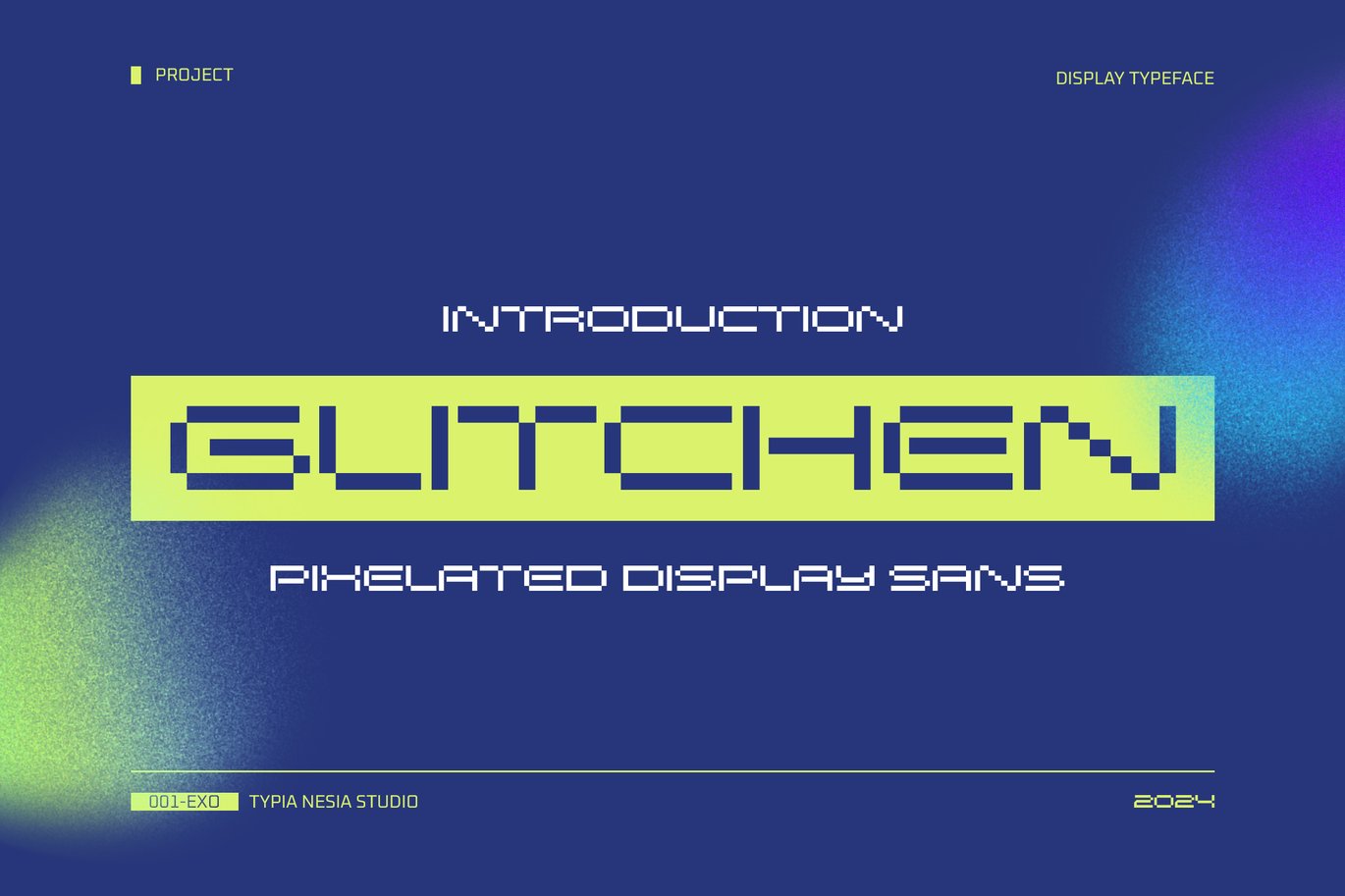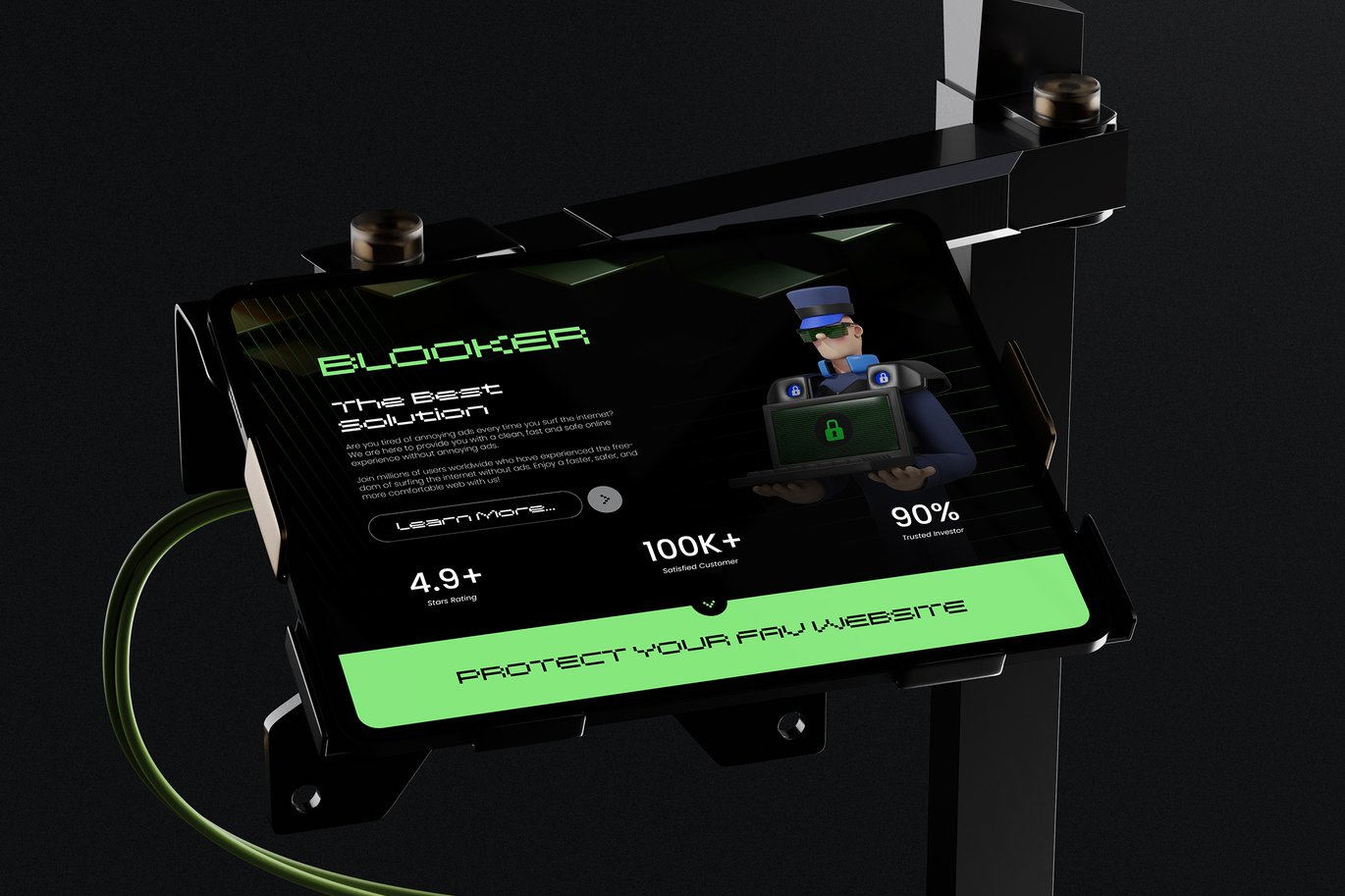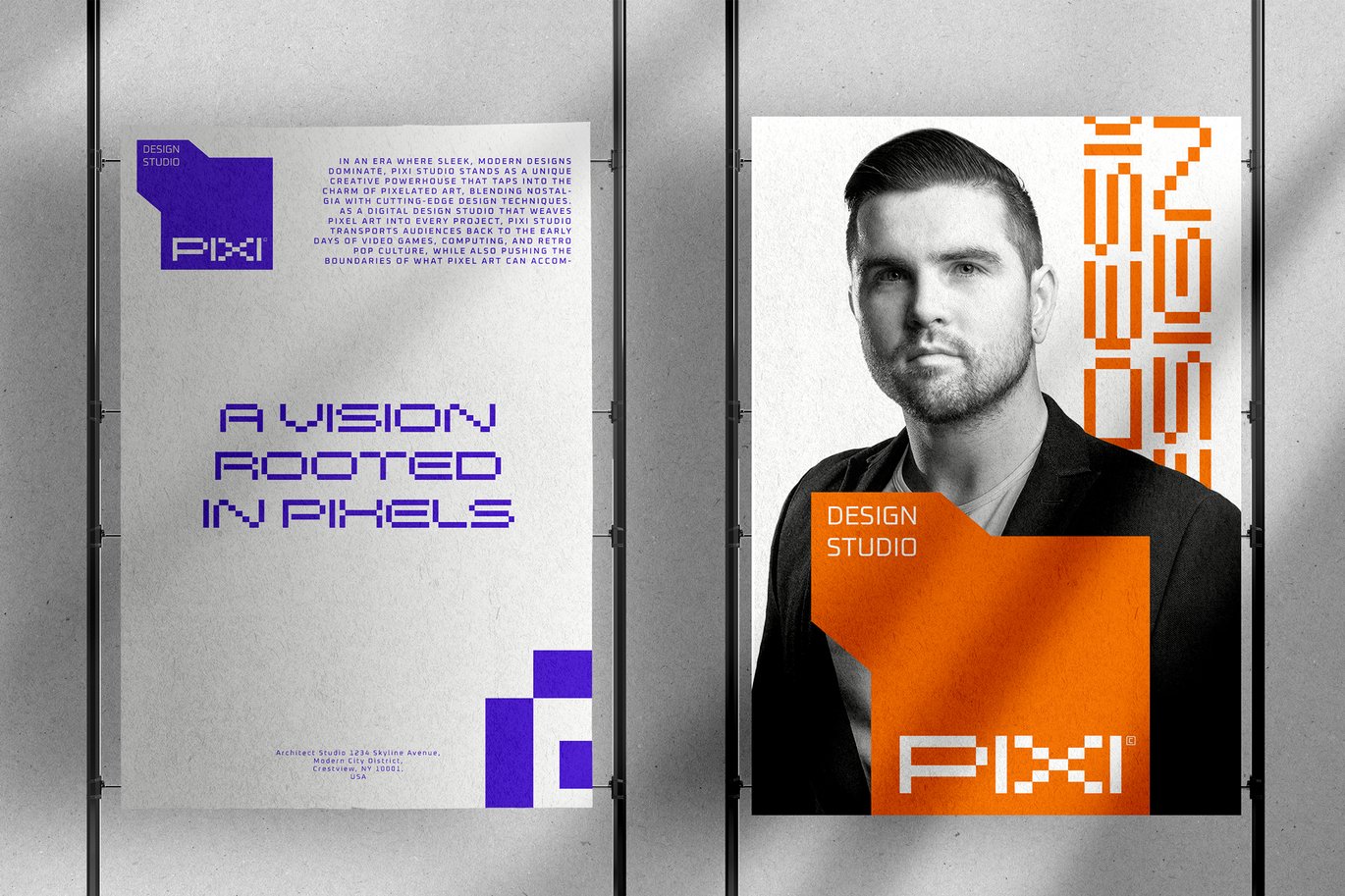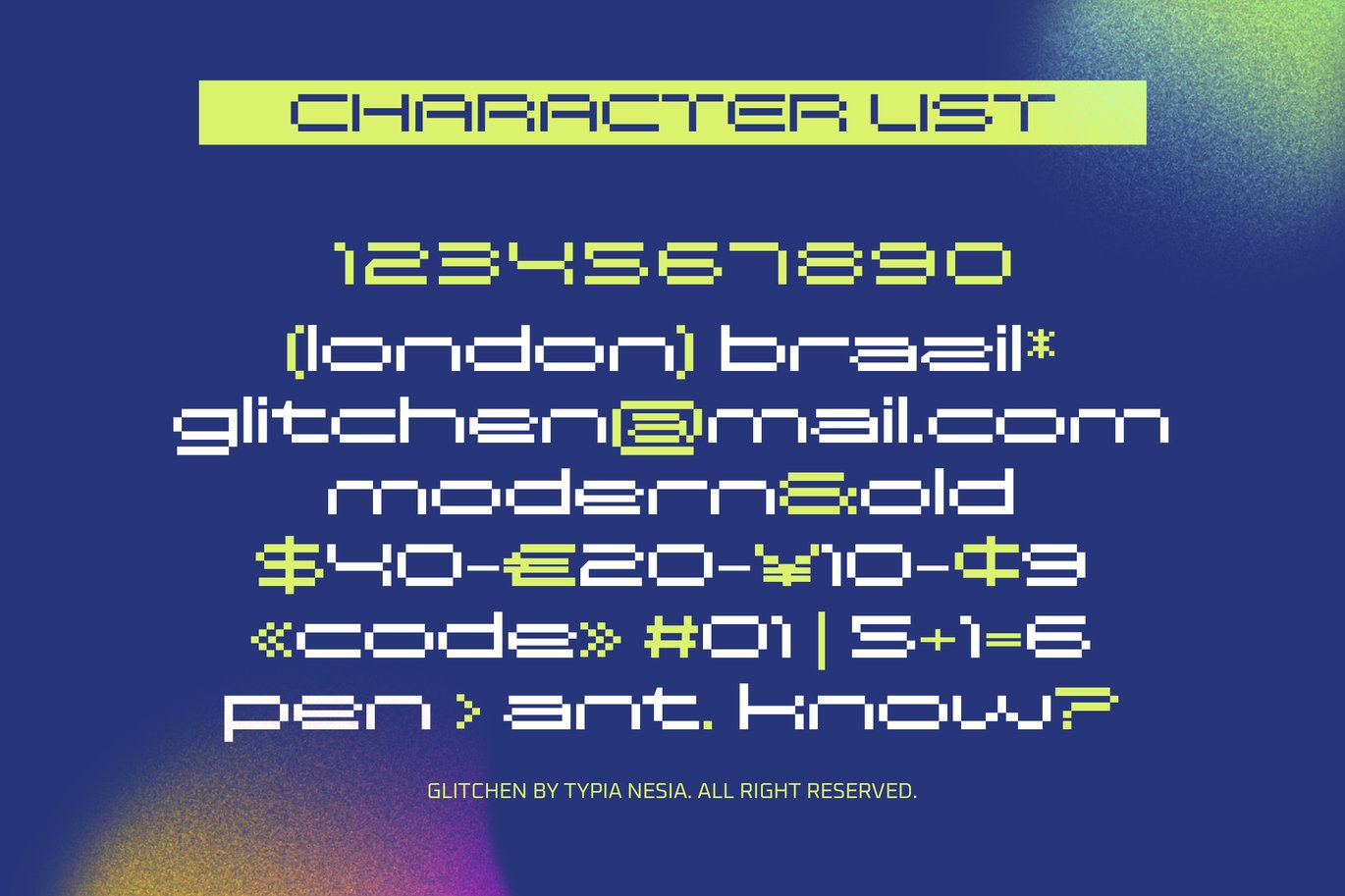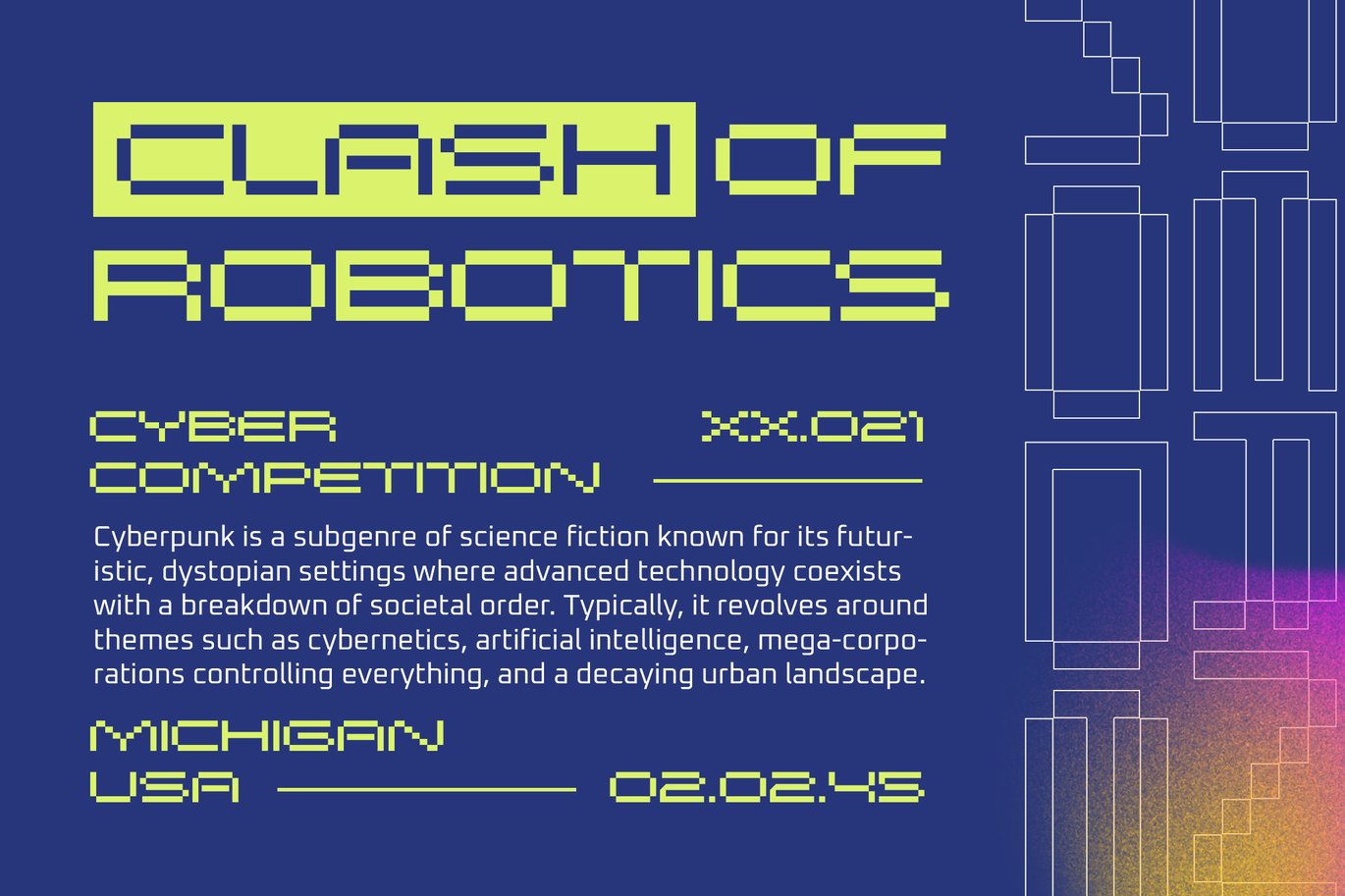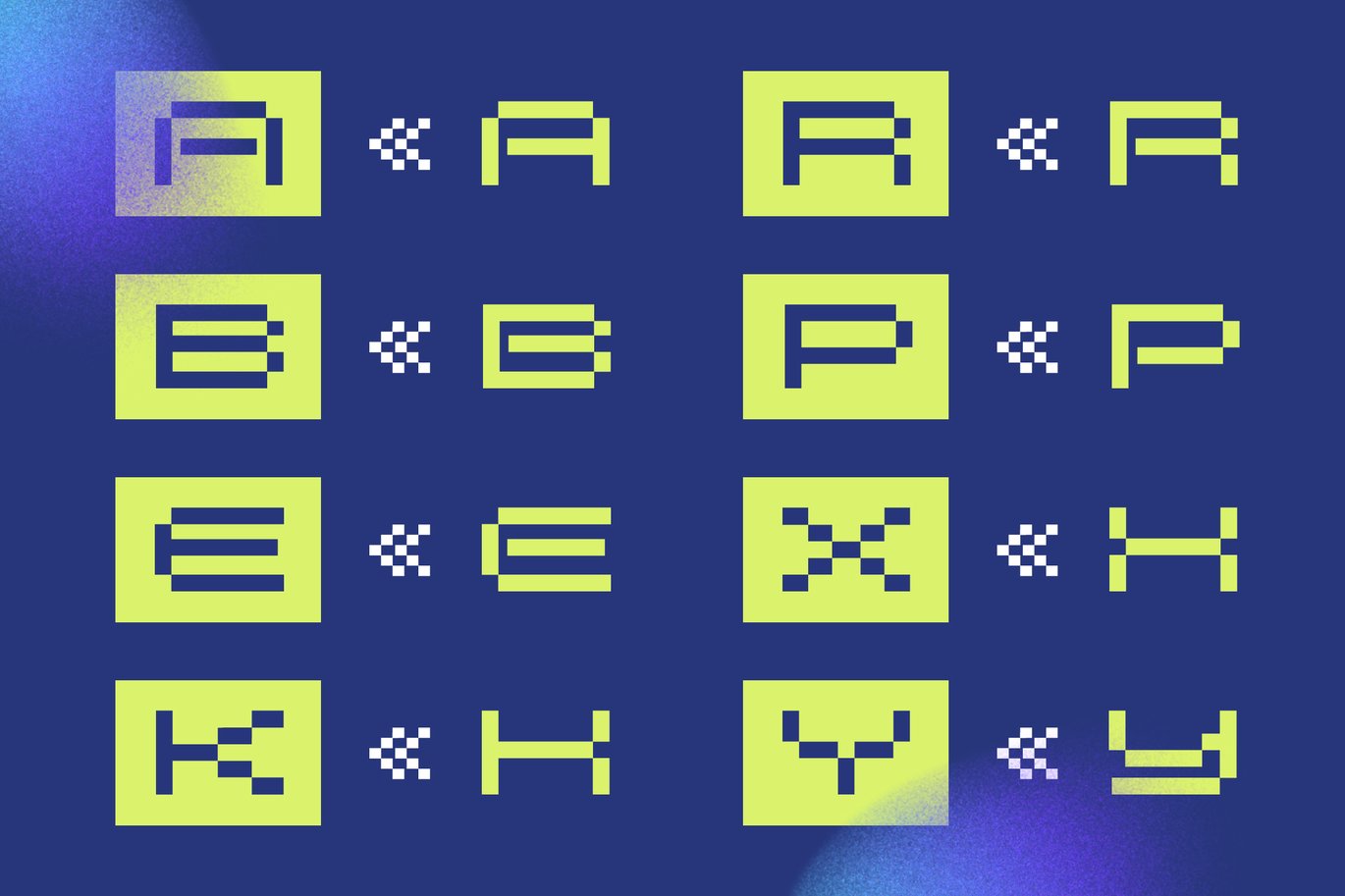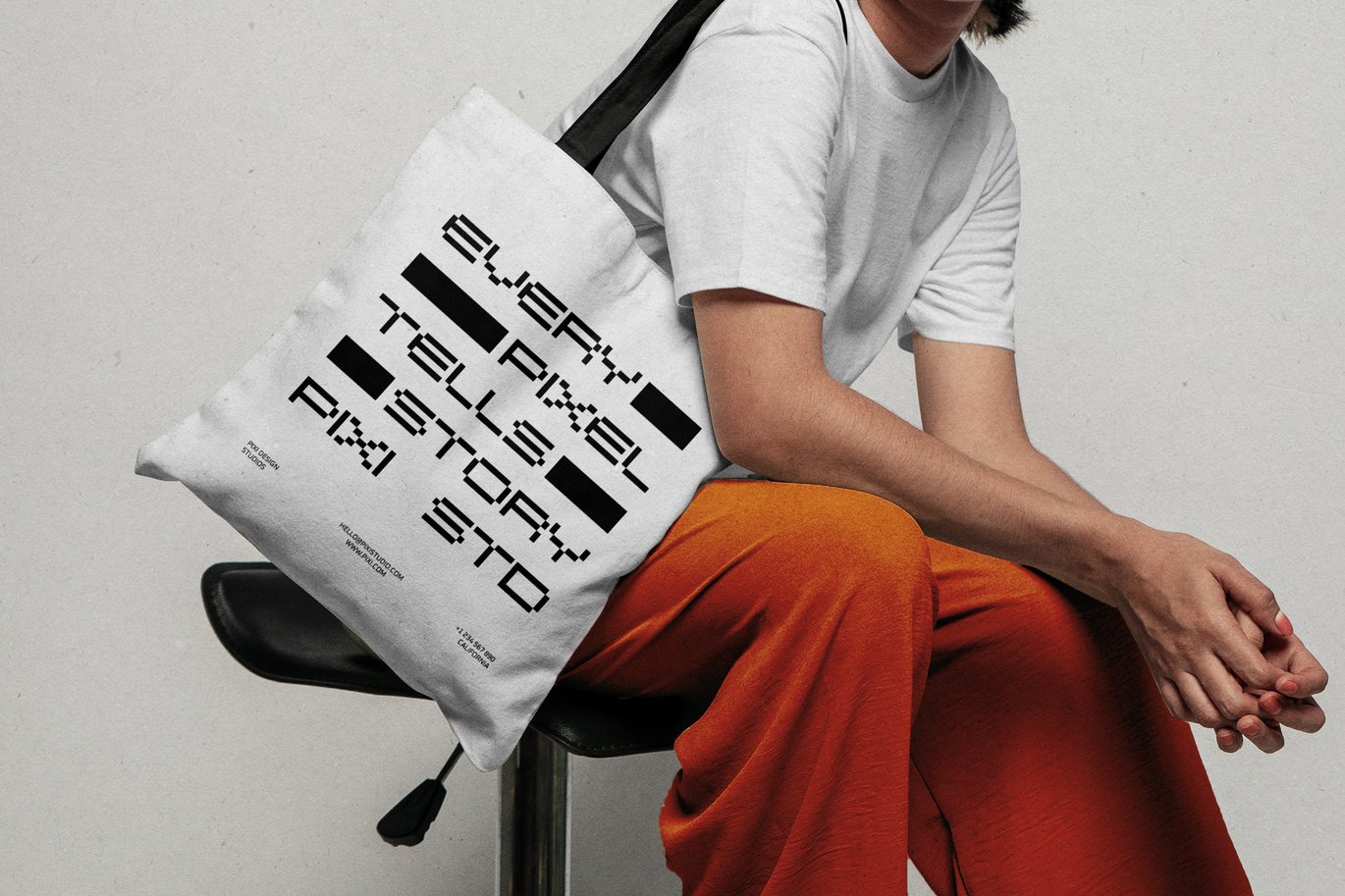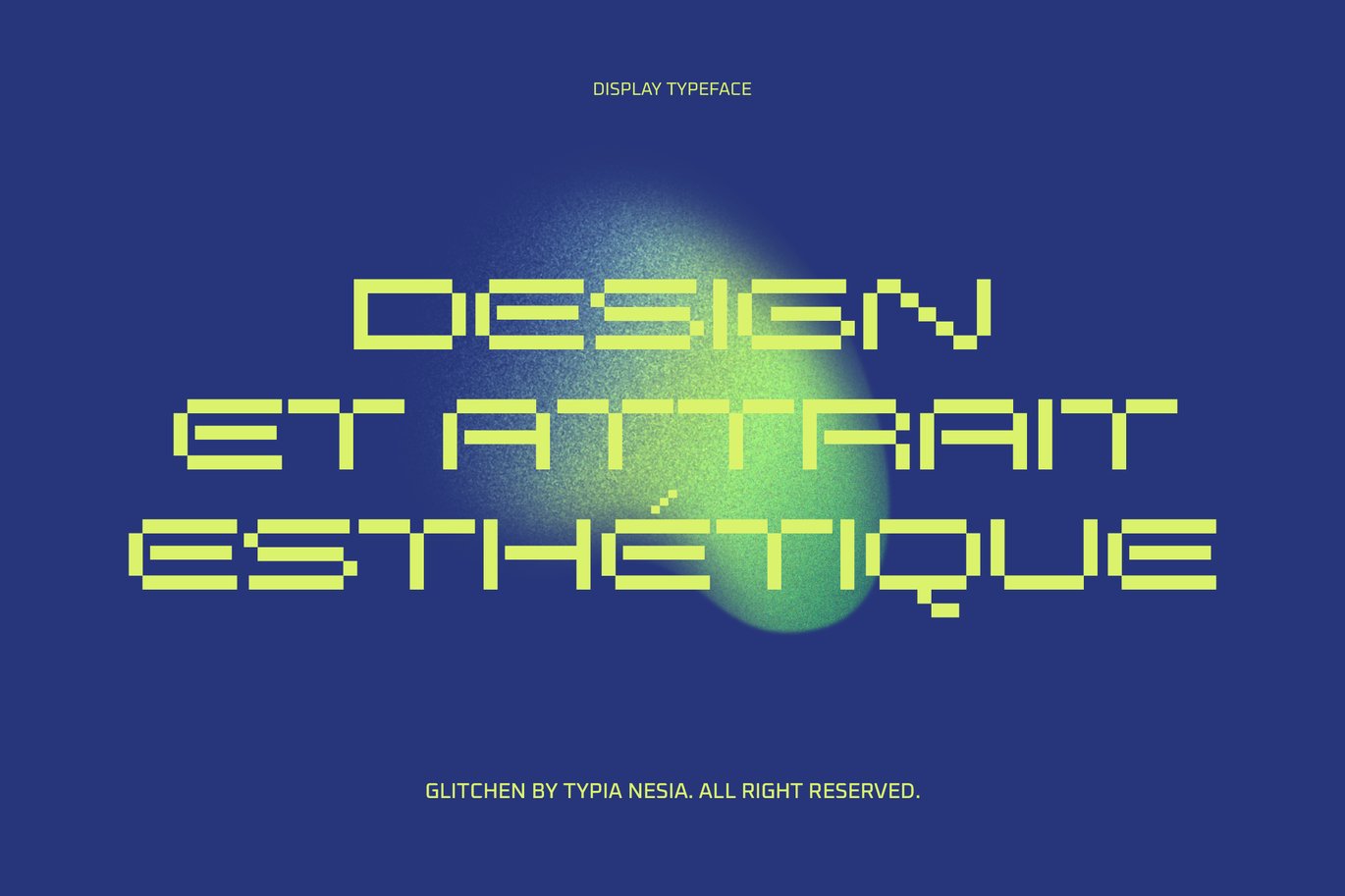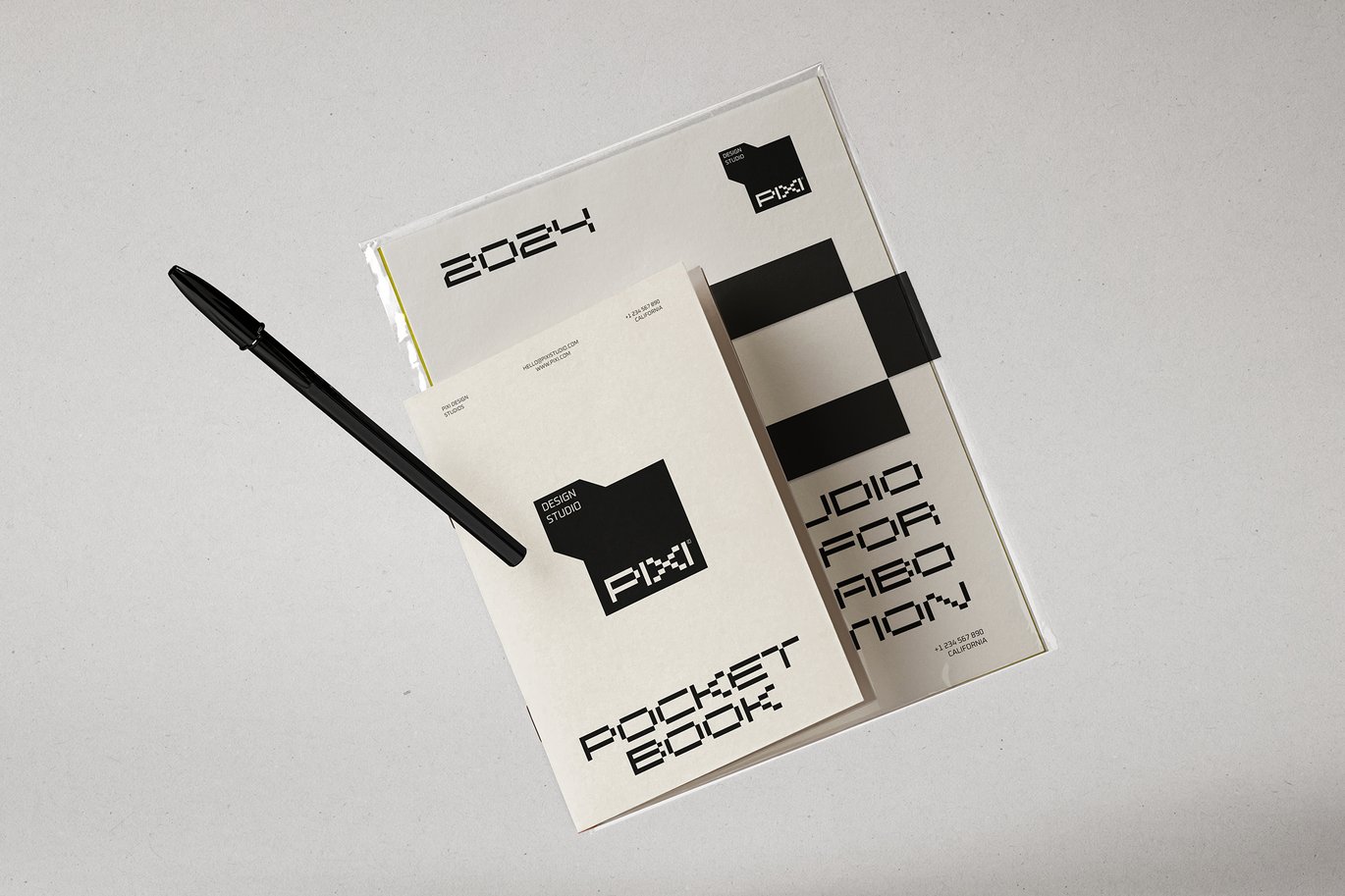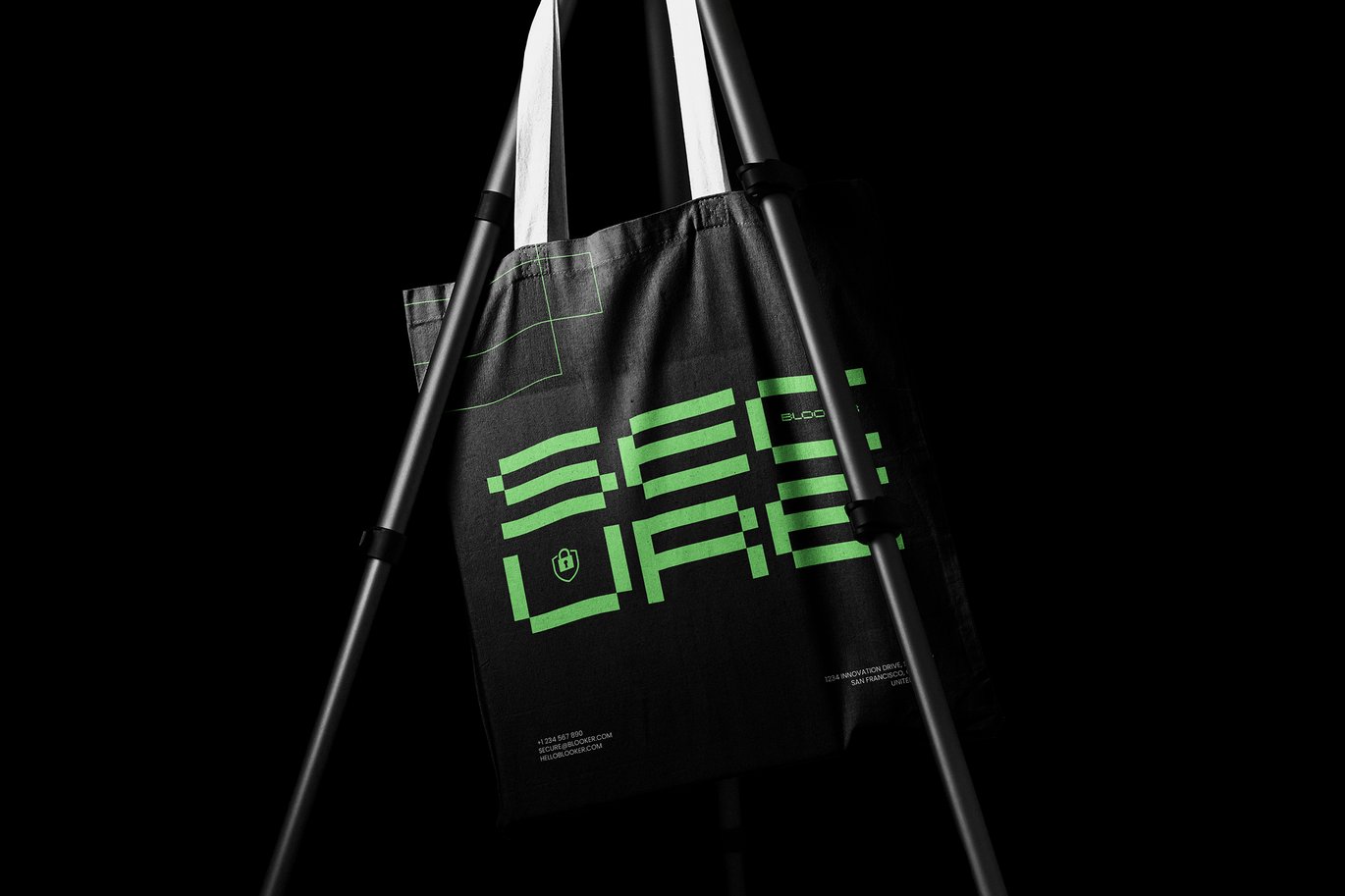
Glitchen – Pixelated Display Sans Font
Glitchen – Pixelated Display Sans Font – Modern Expanded Digital Futuristic Game Font
Glitchen is a pixelated display sans font with a modern. The font merger of futuristic and pixelated design brings a cutting-edge look that blends retro 8-bit aesthetics with a modern twist. The blocky, glitch-inspired design exudes energy and movement, making it ideal for sports branding, gaming interfaces, digital interfaces, tech branding, esports logos, and futuristic posters or any project that wants to evoke a digital, competitive atmosphere. Comes with uppercase and lowercase characters, punctuation, numerals, and multilingual support. The pixel-perfect design ensures a clean, modern aesthetic with its edgy, glitch-filled look, adding a dynamic and energetic feel. Tailored for designers, Glitchen is crafted to bring a sense of digital excitement and futuristic action. Whether you’re working on a competitive sports game or a digital ad campaign, Glitchen gives your work a dynamic edge.